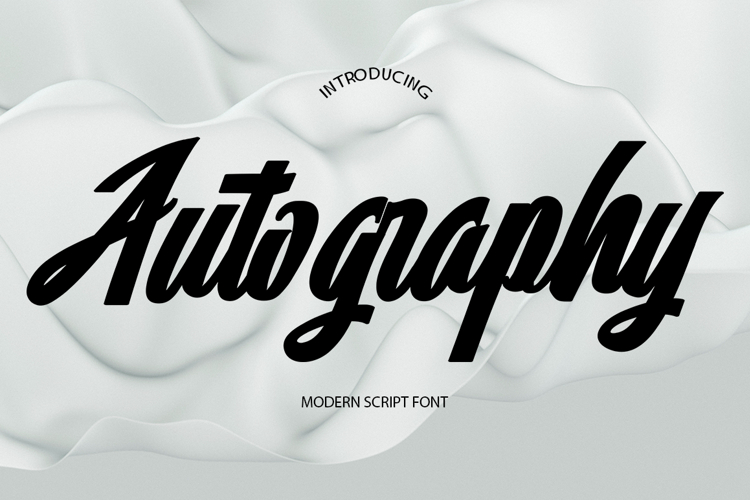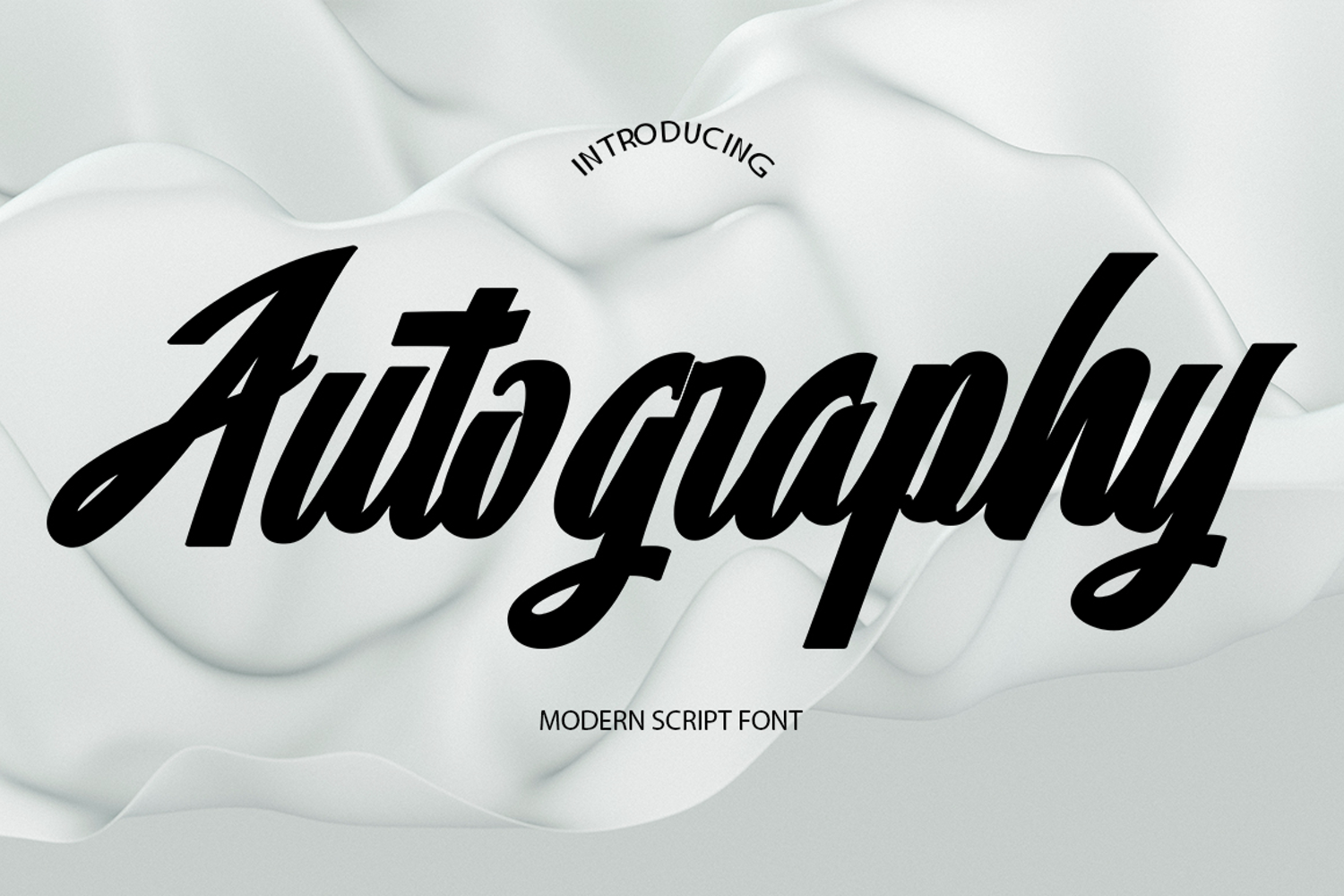
Autography
Autography is a calligraphy font that comes with a very beautiful character change, a kind of classic decorative copper script with a modern touch, designed in great detail for an elegant style.
Autography is attractive because it is smooth, clean, feminine, sensual, glamorous, simple and very easy to read, due to the many luxurious letter connections. I also offer a number of alternative styles that are worthy of many letters. The classic style is perfect for applications in various formal forms such as invitations, labels, restaurant menus, logos, fashion, makeup, stationery, novels, magazines, books, greeting/wedding cards, packaging, labels or all types of advertising needs. . . . .
Autography has support for various languages. OpenType features with elegant alternative styles and ligatures. The OpenType feature works automatically, but you can access it manually and for the best results it takes your creativity in combining these Glyph variations.